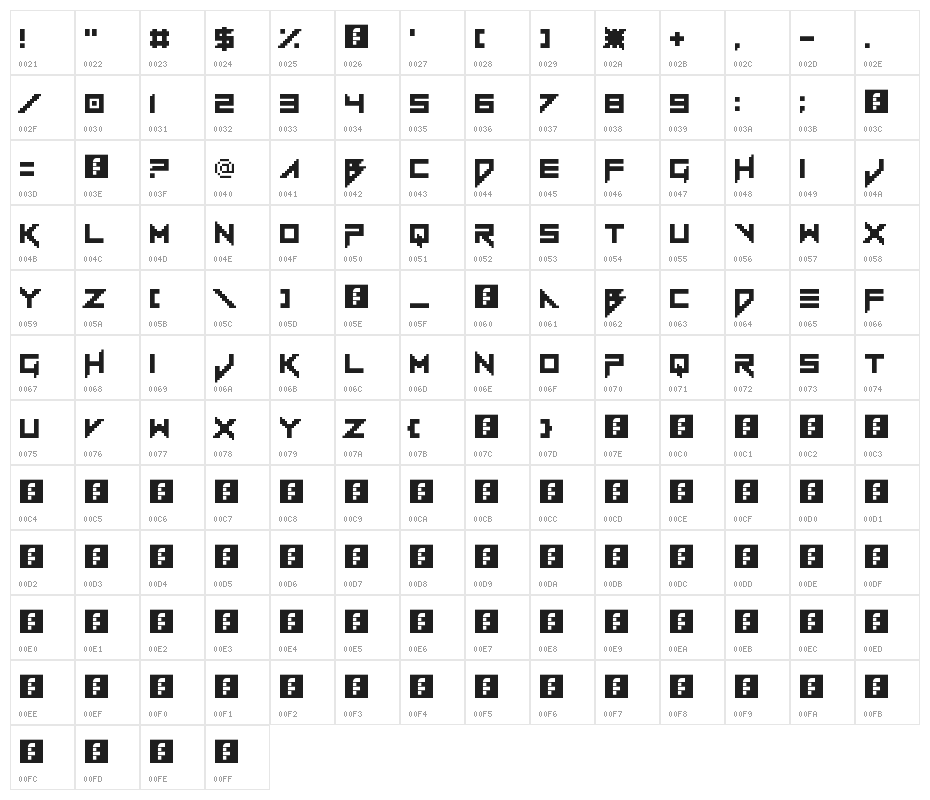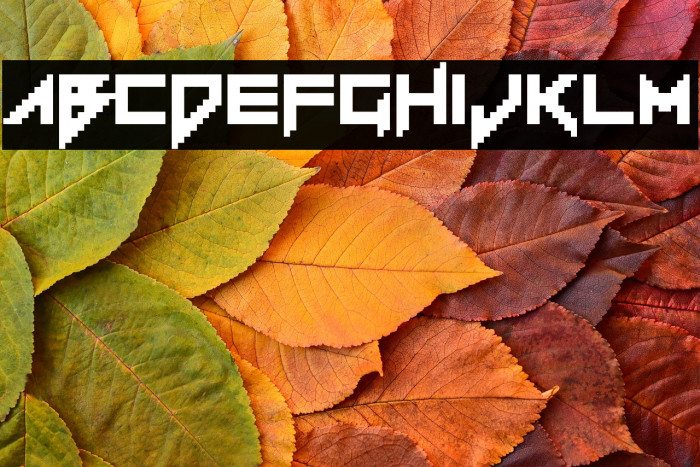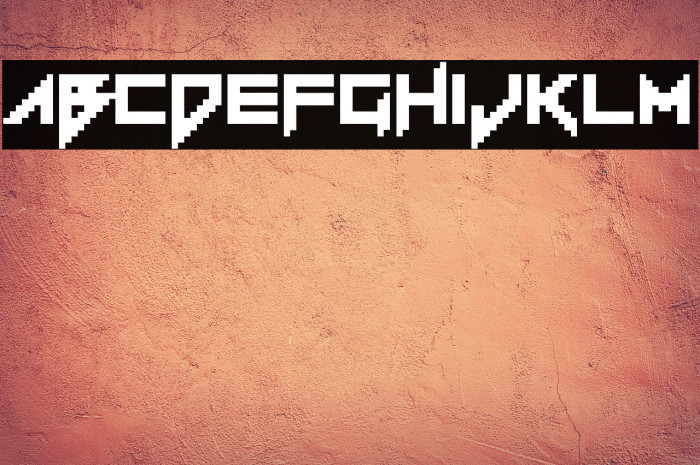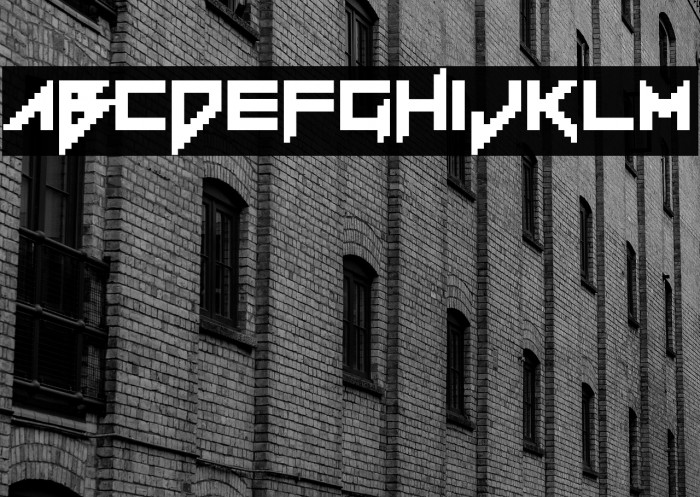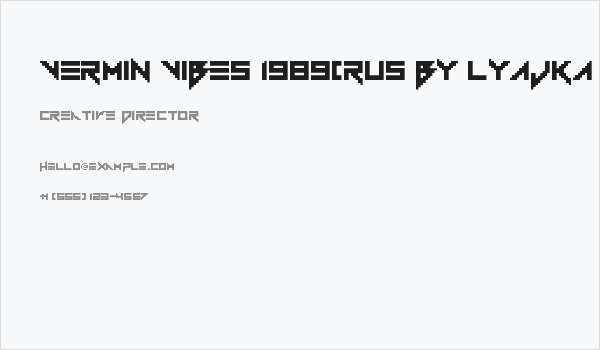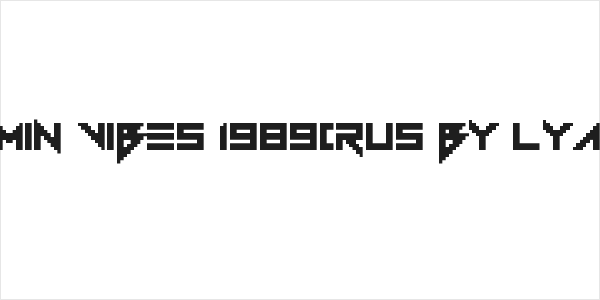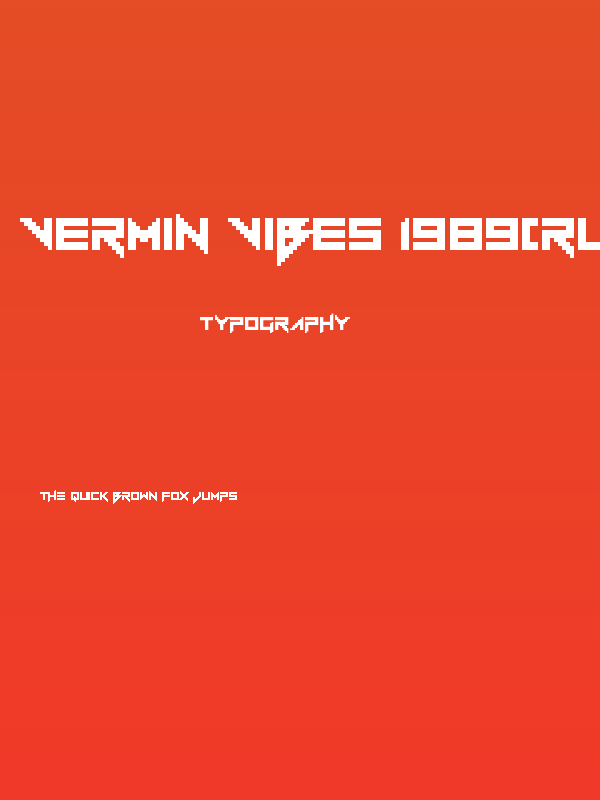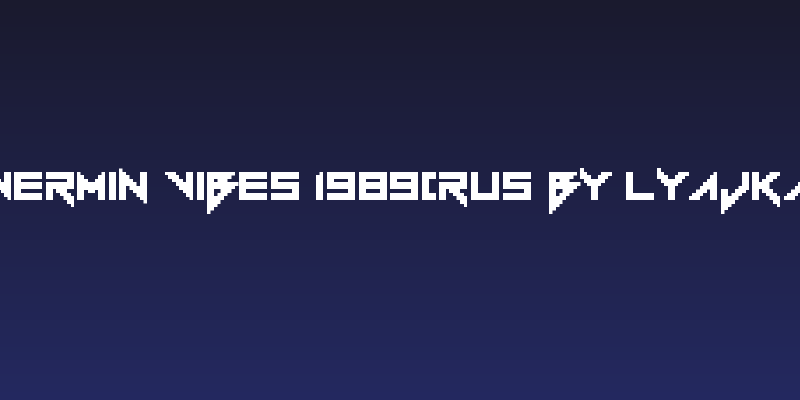
Vermin Vibes 1989(RUS BY LYAJKA Font
Vermin Vibes 1989(RUS BY LYAJKA Description
This font features a bold, pixelated style reminiscent of early digital and arcade aesthetics. The characters are constructed with sharp, angular edges and a blocky appearance, giving them a distinctly retro and technological feel. The uppercase and lowercase letters maintain a consistent geometric form, while the numerals and special characters follow the same design principles. The font's unique style is both eye-catching and nostalgic, making it ideal for projects that aim to capture the essence of the late 20th-century digital era.
| Overall Style | Retro, Digital |
| Proposed Projects | Ideal for video game design, retro-themed posters, digital art projects, and any creative work that seeks to evoke a sense of nostalgia for the early digital age. |